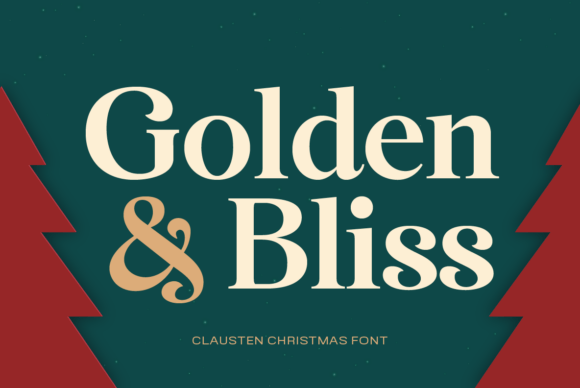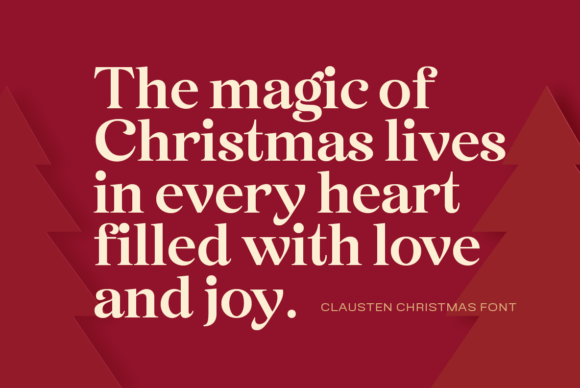
Deck the Halls with Style: Introducing Clausten Font
As the holiday season approaches, I find myself rummaging through old scrapbooks and sketchbooks, reminiscing about past Christmas projects. The memories of carefully crafted cards, invitations, and decorations come flooding back, and I’m reminded of the joy of bringing festive cheer to loved ones. This year, I’m excited to introduce you to a new addition to your holiday design arsenal: Clausten, a sophisticated serif font that embodies the elegance and charm of the season.
Designed to elevate your holiday projects, Clausten Font is the perfect choice for creating luxurious Christmas cards, invitations, seasonal branding, and decorative prints. Its stylish curves and timeless appeal will transport your designs to a world of festive wonder. Whether you’re a seasoned designer or a creative enthusiast, Clausten Font is an invaluable tool that will add a touch of class and Christmas spirit to your work.
Clausten Font Key Features
- Font Family: Clausten Font is a serif font family with a traditional and elegant feel.
- Size: Clausten Font comes in 6 weights, ranging from Light to Black, with corresponding italic versions.
- Unique Characteristics: Clausten Font features a unique blend of modern and traditional elements, with subtle flair and flair details.
- Character Set: Supports a wide range of languages, including Latin, Greek, and Cyrillic alphabets, as well as various diacritics and symbols.
Clausten Font Review
As a designer, I was excited to try out the Clausten font. Here’s my honest review.
- The Clausten font has a unique, elegant feel to it. It’s perfect for creating a sense of luxury and sophistication in your designs.
- The font is highly customizable, allowing you to adjust the weight, width, and slant to suit your needs.
- Clausten is a versatile font that can be used in a variety of settings, from headlines to body text.
- The font may not be suitable for digital use, as it can appear blurry or pixelated at smaller font sizes.
- The font’s unique style may not be to everyone’s taste, and some designers may find it too ornate or distracting.
Overall, I think the Clausten font is a great choice for designers looking to add some elegance and sophistication to their designs. However, it may not be the best choice for digital use or for designers who prefer a more straightforward font style.
Clausten Font is a great choice for designs that require a elegant and sophisticated look.
Some common use cases for Clausten Font include:
- Business cards and brochures
- Magazine and newspaper headlines
Remember to use Clausten Font in conjunction with other design elements that complement its elegant and sophisticated look.